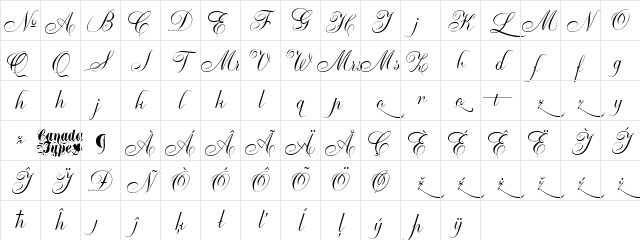
Ambassador Script Alts Regular
Foundry: Canada Type
Designer: Rebecca Alaccari
Design Context for Ambassador Script Alts
Ambassador Script Alts flows with the natural rhythm of handwritten lettering, making it ideal for designs that call for warmth and personal expression.
Font Pairing: Combine Ambassador Script Alts with a simple geometric sans for maximum contrast - the tension between flowing curves and clean structure is a classic typographic pairing.
Pro Tip: Use Ambassador Script Alts for short runs of text - names, titles, or taglines. Extended body copy in script faces tires the eye quickly.